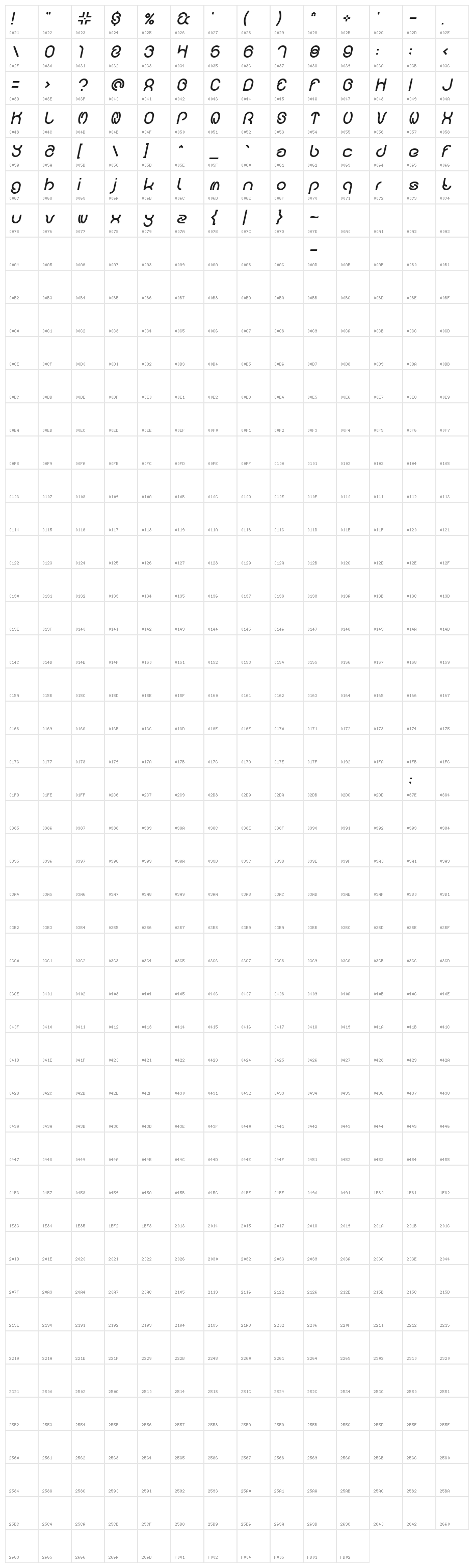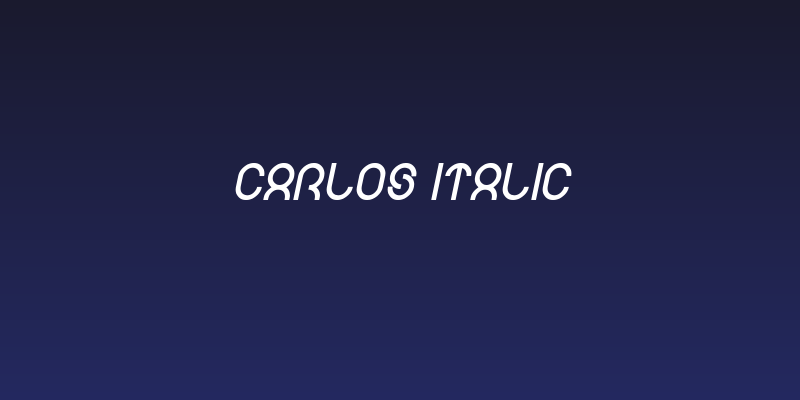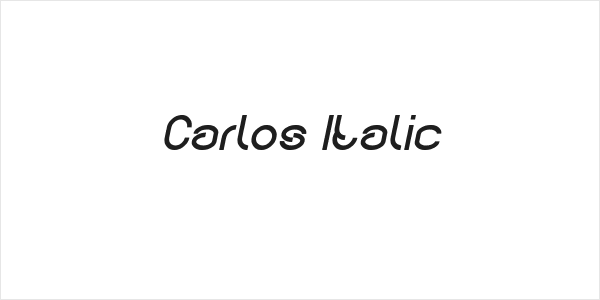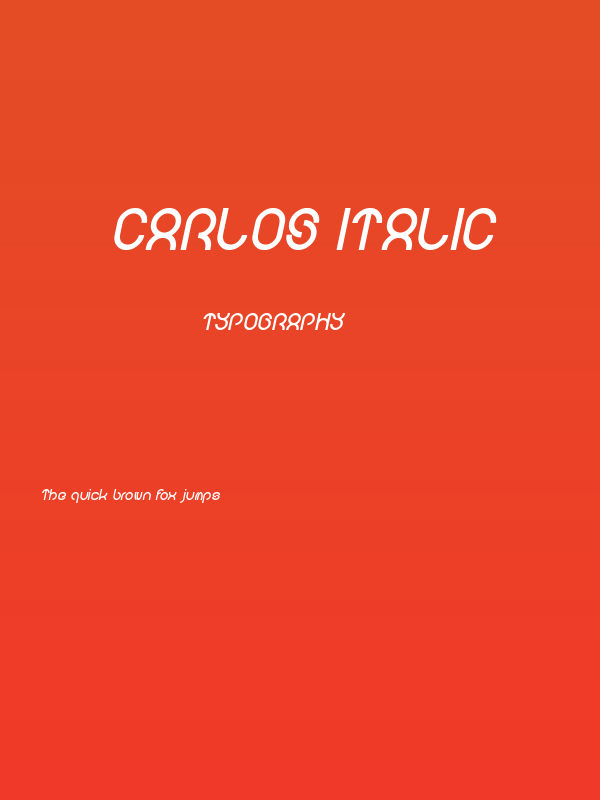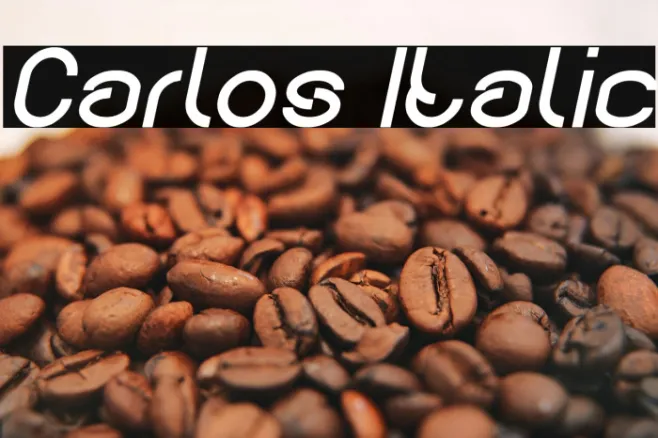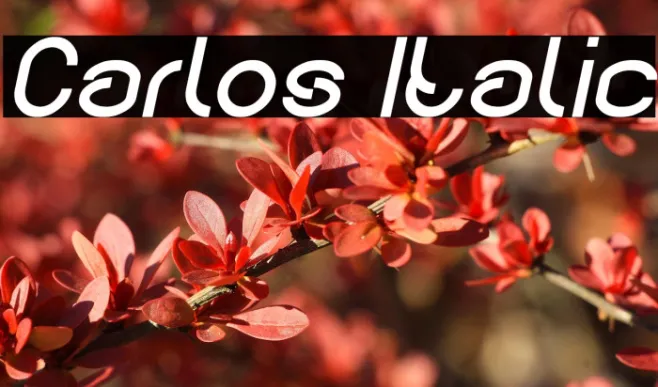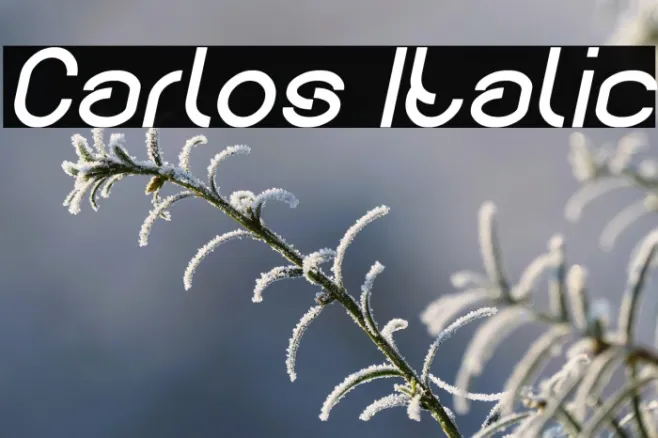
Carlos Italic Font
Carlos Italic Description
This font features a modern, italicized style with smooth, flowing curves and a consistent slant that gives it a dynamic and energetic appearance. The characters are well-balanced, with a slight forward tilt that enhances readability while maintaining a stylish look. The uppercase and lowercase letters are distinct, with rounded edges and a uniform stroke width that provides a clean and polished finish. Numbers and special characters are designed to match the overall aesthetic, ensuring a cohesive look across all text elements. This font is versatile, suitable for various design applications where a contemporary and elegant touch is desired.
CARLOS-ITALIC UPPERCASE
CARLOS-ITALIC LOWERCASE
CARLOS-ITALIC OTHER CHARS